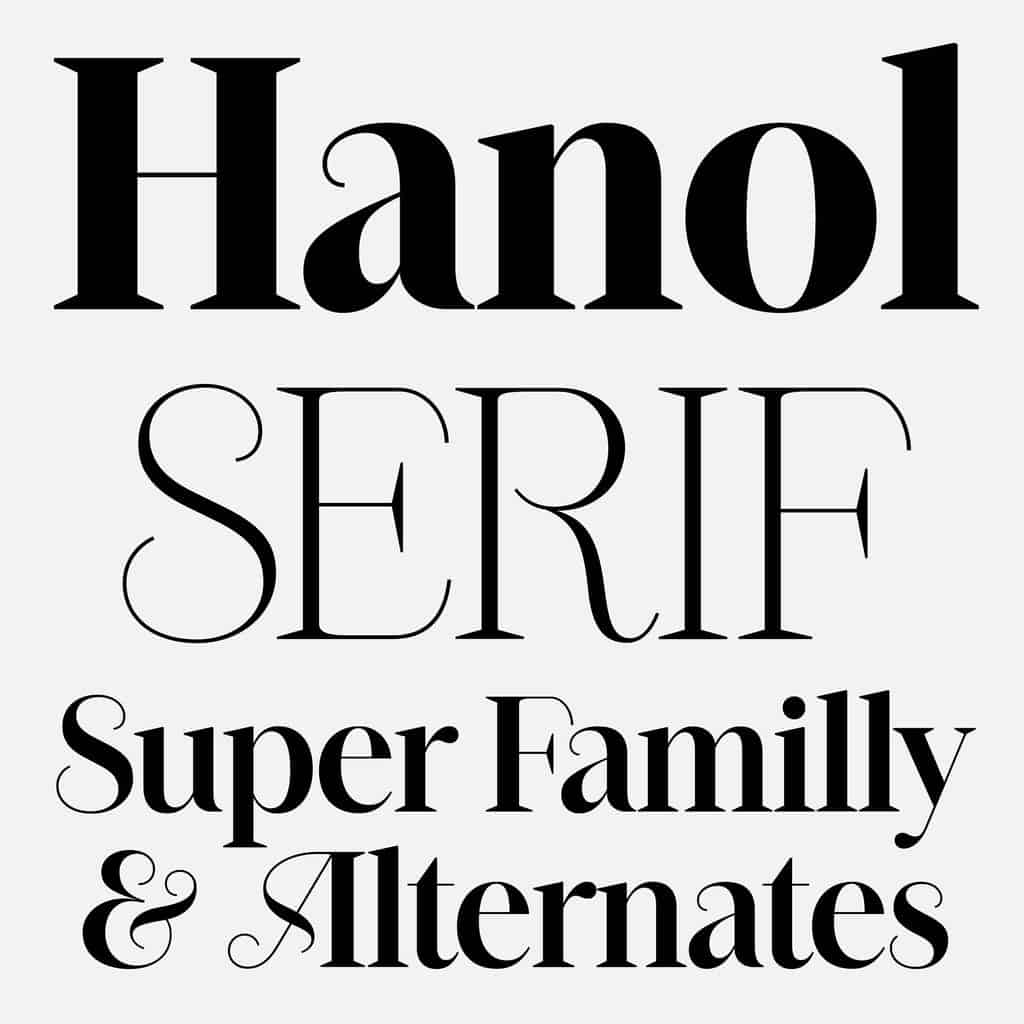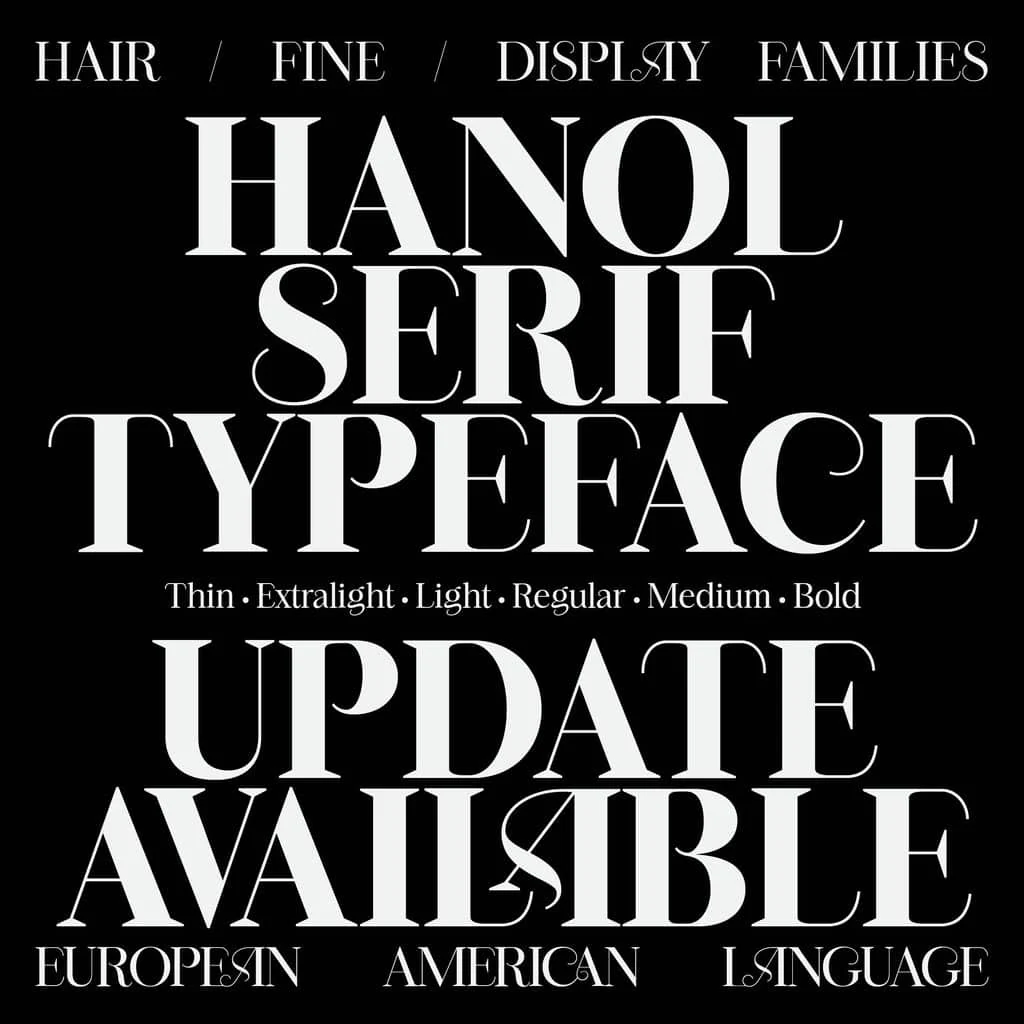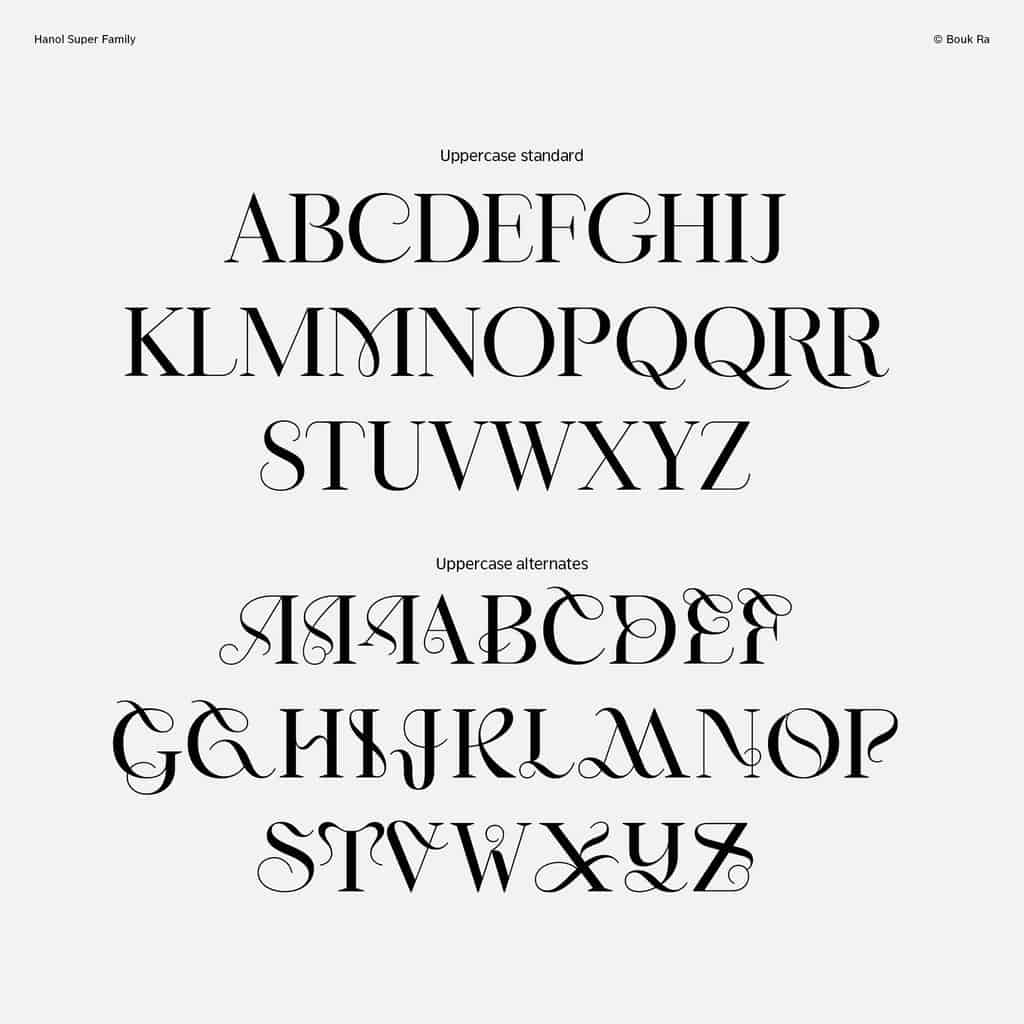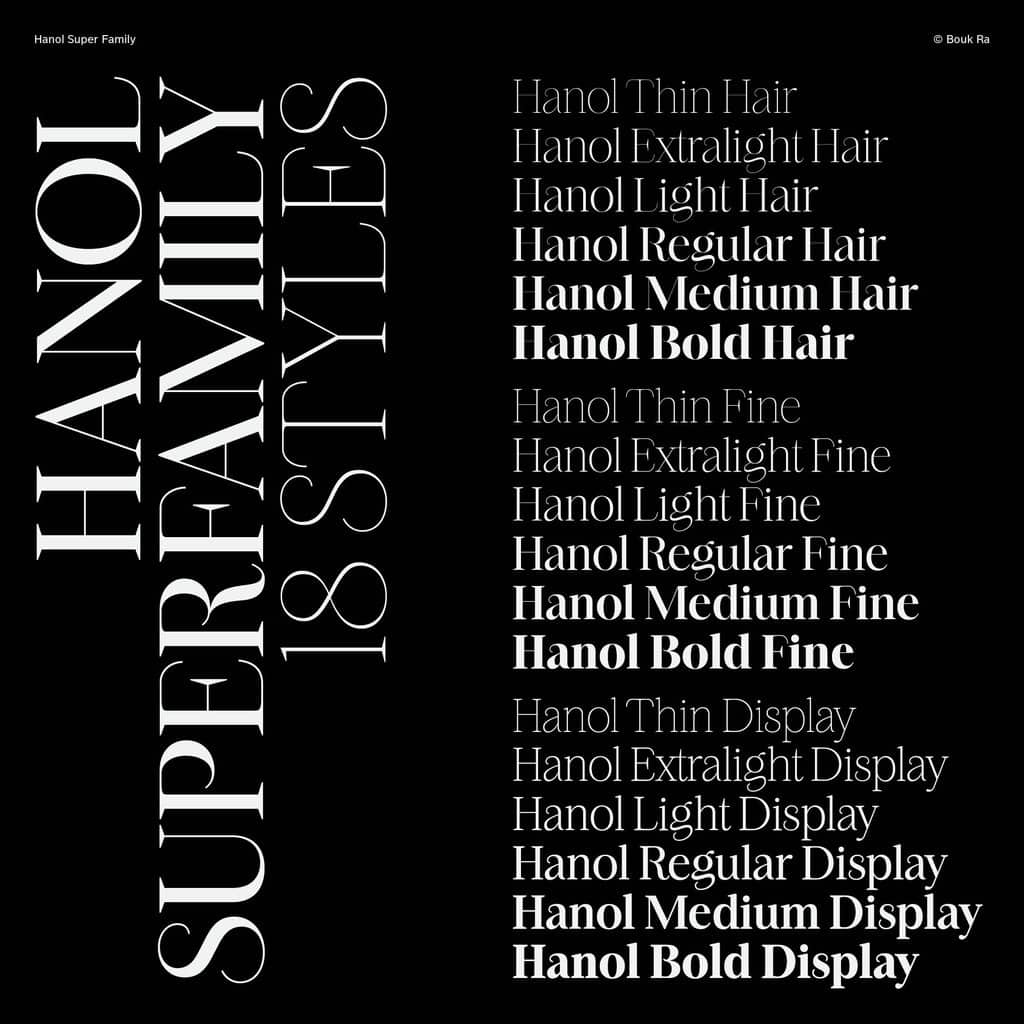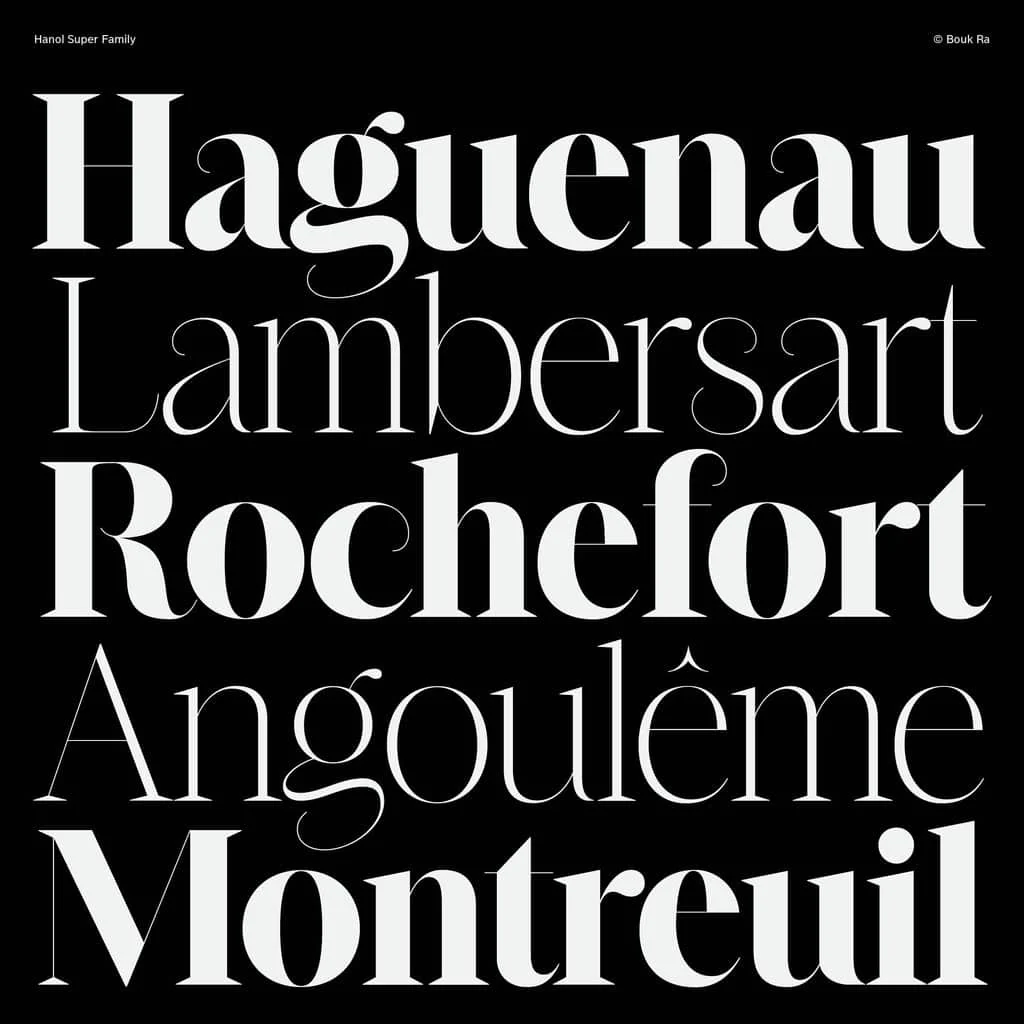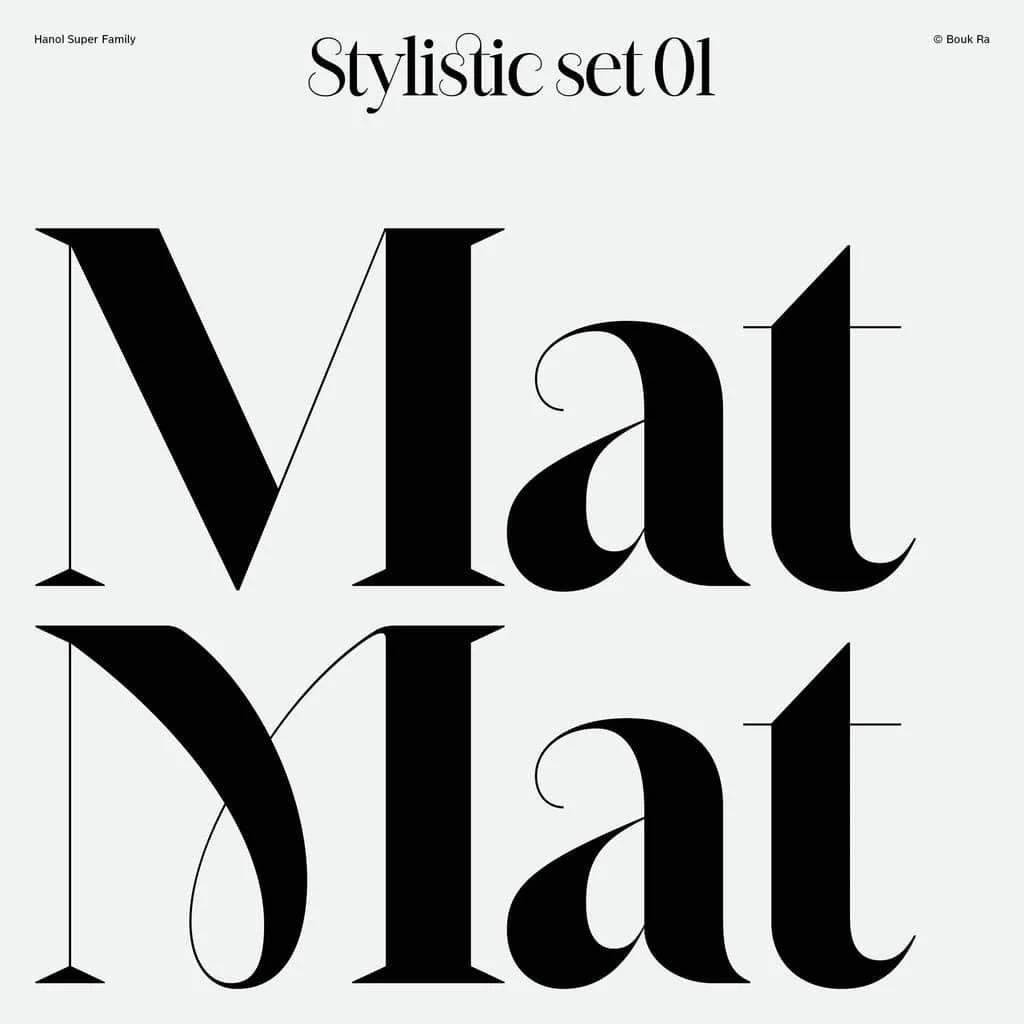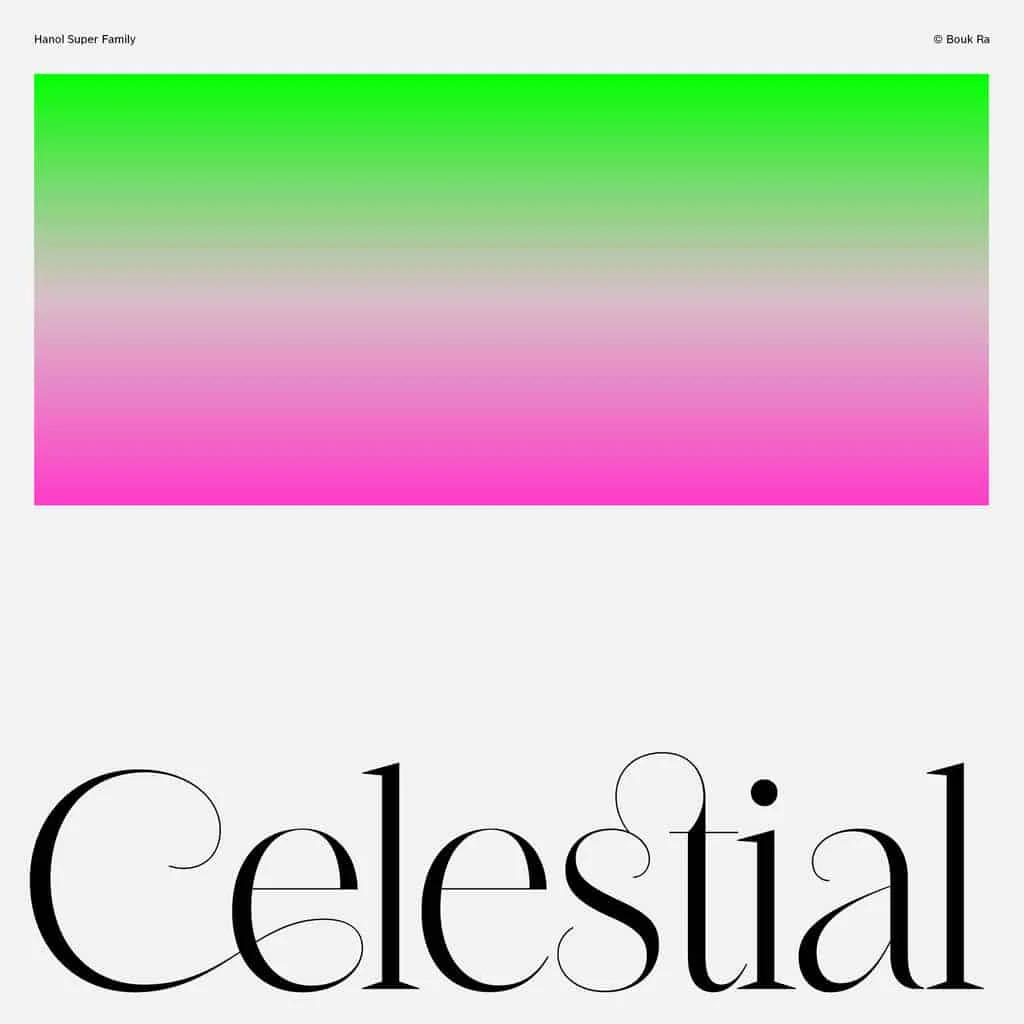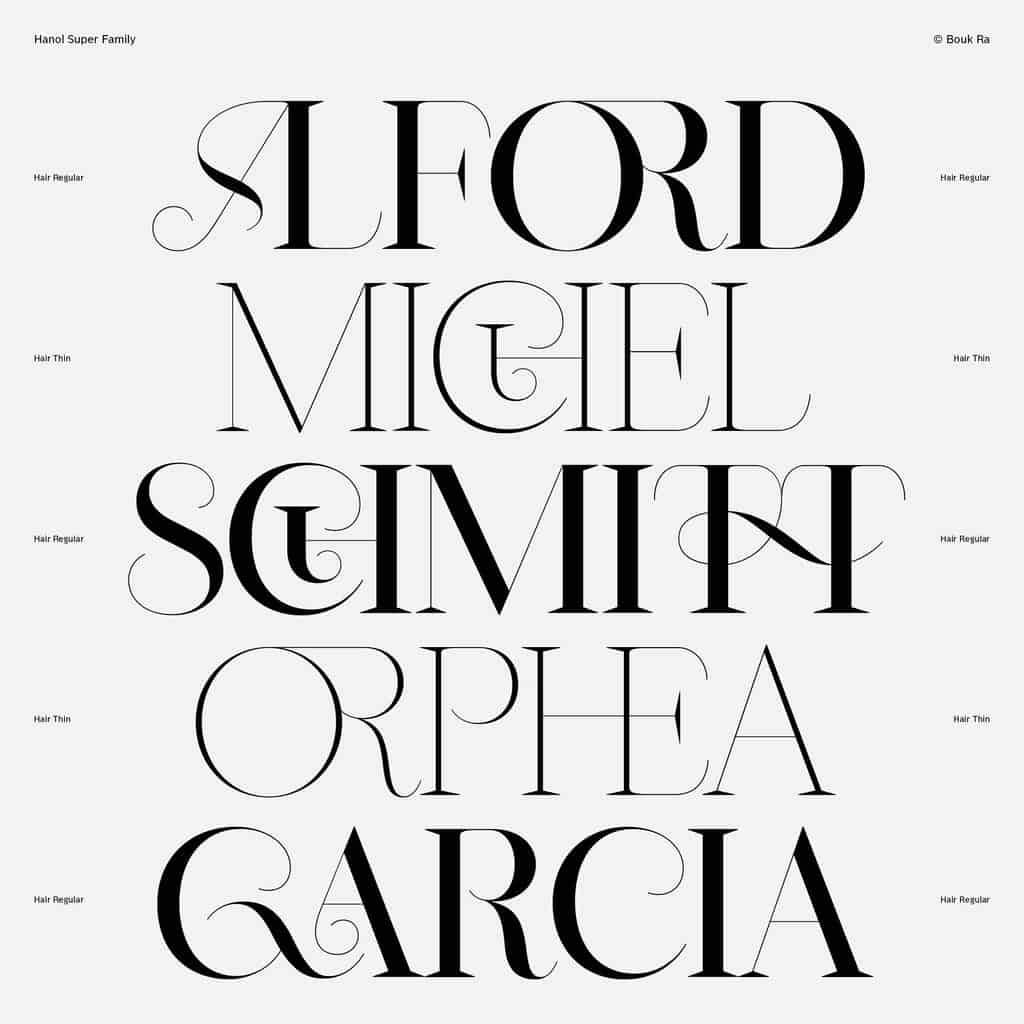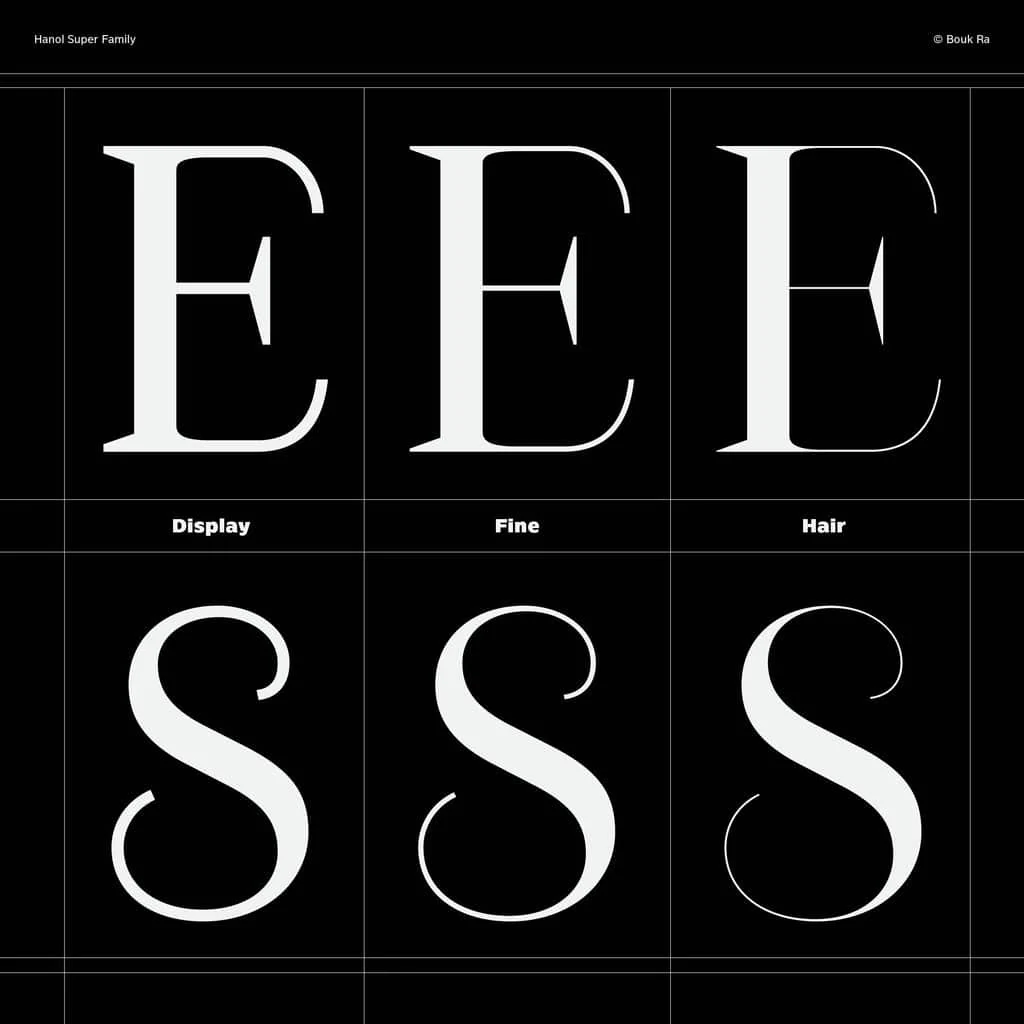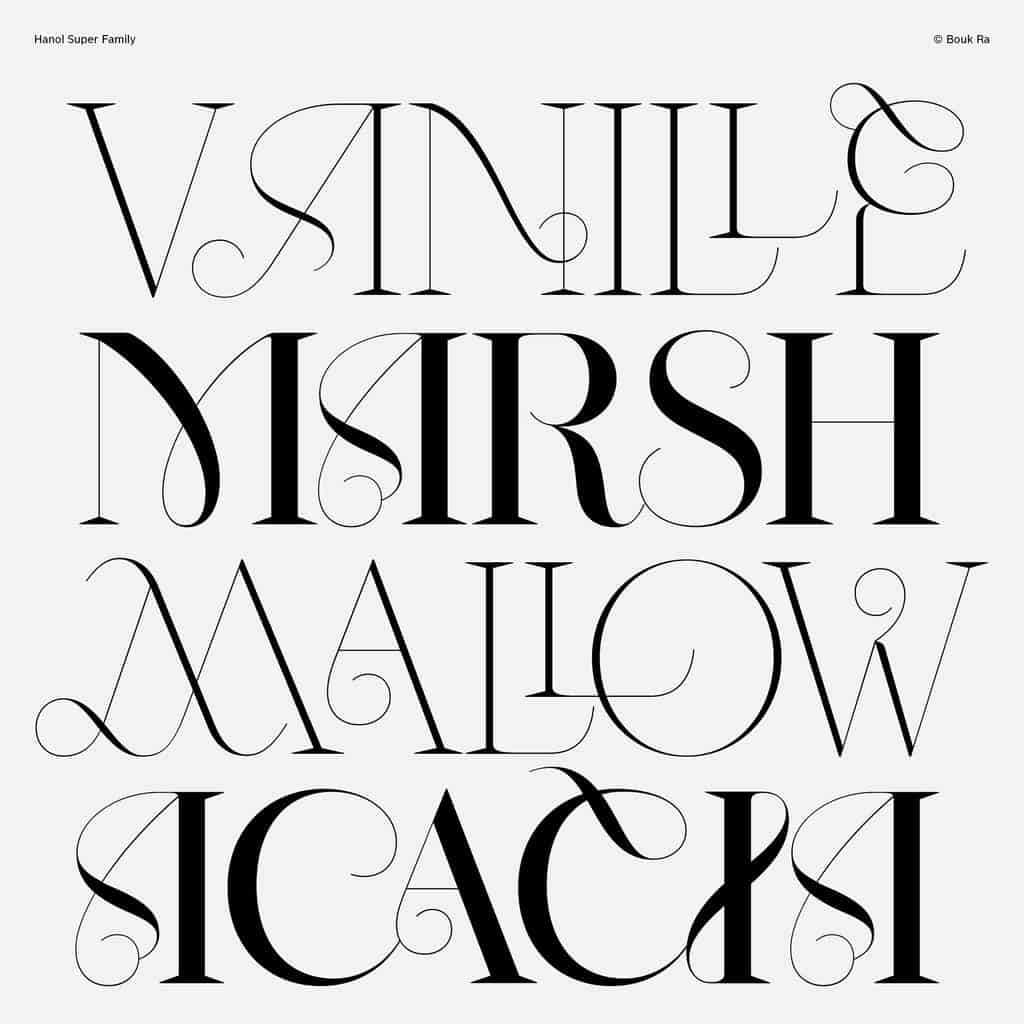
Hanol V.2
Derived from the Korean word for "strand" or "hair," Hanol celebrates the elegant curves found within the strokes of its letters. Inspired by the ethereal robes of a fairy floating in traditional Asian folklore, Hanol exudes a light and lively atmosphere. Its delicate yet expressive design enhances its graceful aesthetic, making it ideal for editorial layouts, book design, and beyond.